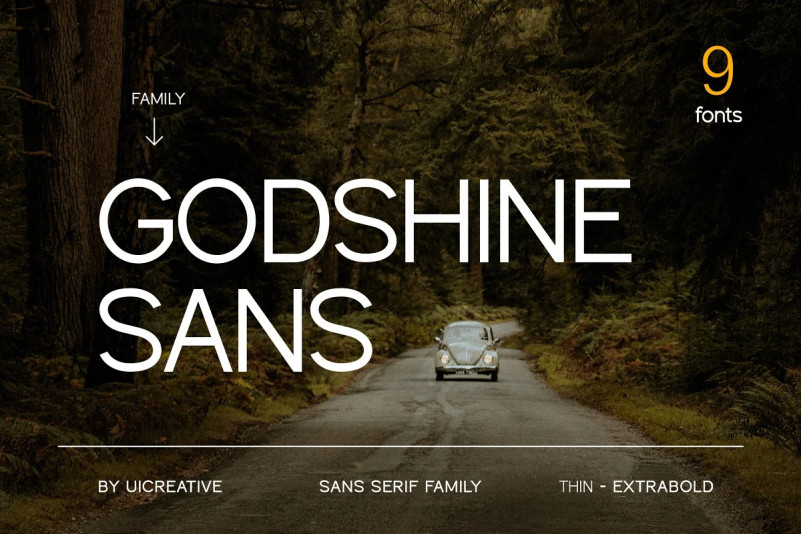
Godshine Sans Font – Sans Serif Family Font comes with 9 different weights. Modern Sans Serif font that feels beautiful classy, elegant, and modern. This font is perfectly suited for a wide variety of projects, such as signature, stationery, logo, wedding, typography quotes, magazine or book cover, website header, clothing, branding, packaging design, and more. Also for fashion-related branding or editorial design and displays both masculine and feminine qualities.